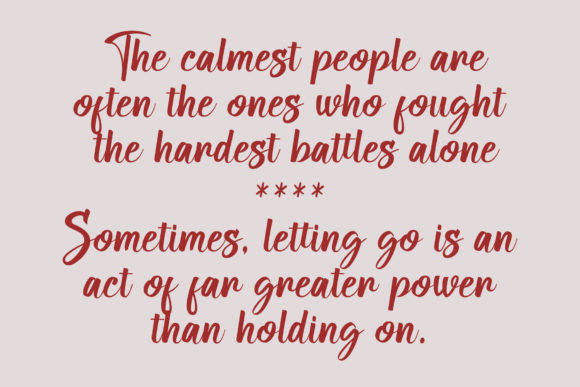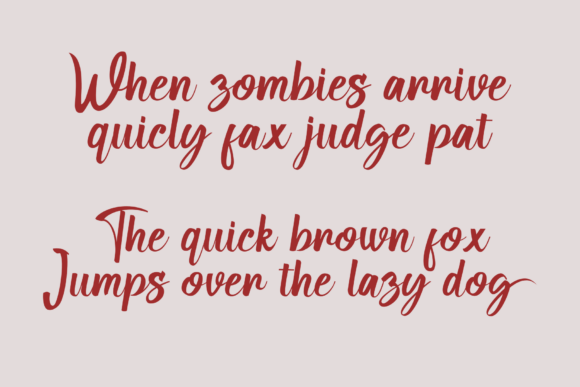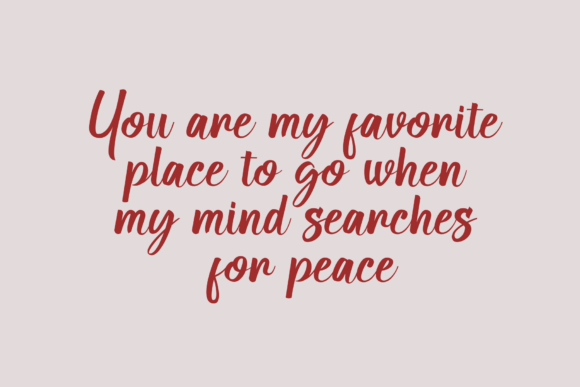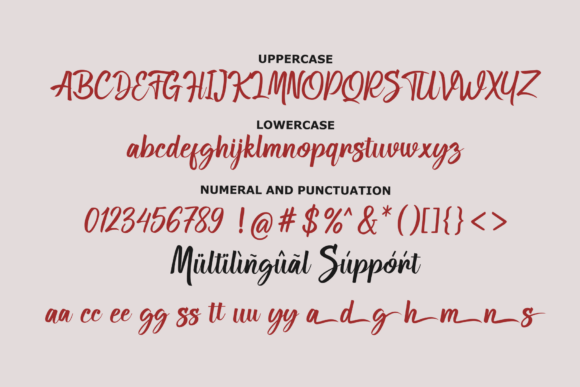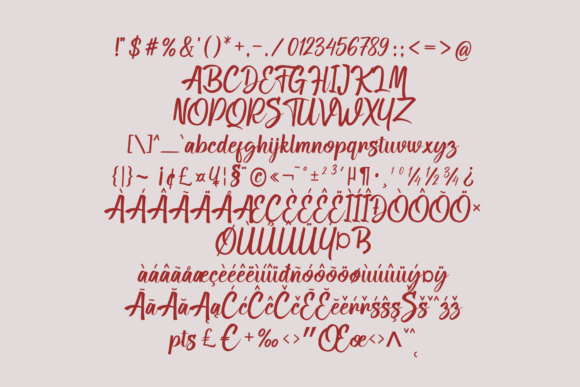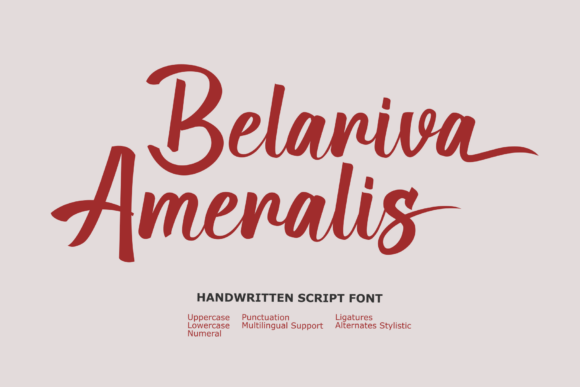
Exude Timeless Grace with the Belariva Ameralis Font
In the world of typography, few fonts manage to convey the essence of elegance and sophistication as effortlessly as the Belariva Ameralis font. This delicate and elegant handwritten script is a masterclass in refined design, mimicking the fluid motion of a fine-tip pen to bring a touch of luxury to any project. Whether you’re a designer looking for the perfect typeface for a high-end client’s branding or a crafter seeking to add a personal touch to your wedding stationery or journal covers, Belariva Ameralis is sure to impress.
A Font Defined by Sophistication
What sets Belariva Ameralis apart is its sophisticated verticality and sweeping, calligraphic flourishes. These elements combine to create a premium “signature” style that feels deeply personal and bespoke. The font’s design is characterized by its tall, slender lines and beautiful swashes, which give it a sense of movement and fluidity. This makes it an ideal choice for projects where you want to convey a sense of luxury, sophistication, and refinement.
Ideal Applications for Belariva Ameralis
Belariva Ameralis is a versatile font that can be used in a variety of applications. Some of the most popular uses for this elegant typeface include:
- Luxury Wedding Stationery: Add a touch of elegance to your wedding invitations, save-the-dates, and other stationery with Belariva Ameralis.
- High-End Photography Watermarks: Protect your images with a sophisticated watermark that complements your photography style.
- Sophisticated Wellness Branding: Create a luxurious brand identity for your wellness business, whether it’s a spa, yoga studio, or health food store.
- Editorial Magazine Headers: Use Belariva Ameralis to add a touch of elegance to your magazine headers and titles.
- Boutique Fashion Logos: Create a luxurious brand identity for your fashion boutique or label.
- Intimate Journal Covers: Add a personal touch to your journal or diary with a beautiful, handcrafted cover featuring Belariva Ameralis.
Advanced Typography Features
Belariva Ameralis is more than just a beautiful font – it’s also a highly functional one. It includes a rich set of ligatures and stylistic alternates, allowing you to create truly bespoke typographic layouts with ease. This means you can customize your text to fit your project’s specific needs, adding a level of sophistication and refinement that’s hard to achieve with standard fonts.
Pairing and Design Tips
To get the most out of Belariva Ameralis, it’s essential to pair it with the right design elements. Here are a few tips to keep in mind:
- Minimalist Photography: Belariva Ameralis pairs beautifully with minimalist, soft-focus photography. The font’s elegance and sophistication complement the simplicity and intimacy of this photography style.
- Neutral Color Palettes: Neutral colors such as white, cream, and light gray provide a refined backdrop for Belariva Ameralis. These colors allow the font’s beauty to shine through without overwhelming the senses.
Accessibility and Compatibility
| Author | NH Studio |
In conclusion, Belariva Ameralis is a truly exceptional font that offers a unique combination of elegance, sophistication, and versatility. Whether you’re a designer, crafter, or DIY enthusiast, this beautiful handwritten script is sure to elevate your projects and add a touch of luxury to your brand or personal style. With its advanced typography features, beautiful design, and wide range of applications, Belariva Ameralis is an excellent choice for anyone looking to exude timeless grace and refinement.